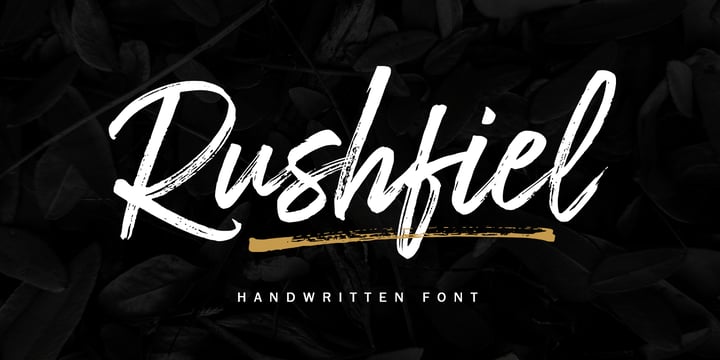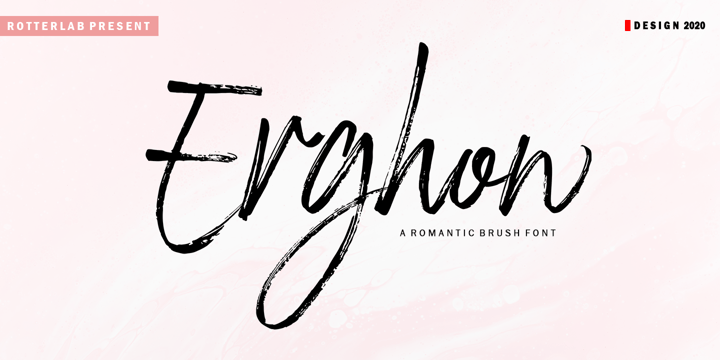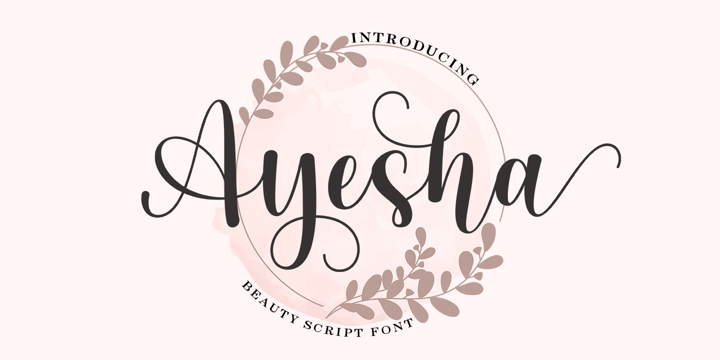
Romantic Font Collection
WOW!!! ROMANTIC FONT COLLECTION - Awesome BUNDLE with unique and modern font styles. This font bundle is perfect for many creative products & designs.
Such as creating Branding, Logos, Blogs, Social Media, Invitations, Weddings, Posters, Magazines, Quotes, Packaging, Photo Overlays, Poatcards, Advertisements, Fashion and others.
WOW!!! ROMANTIC FONT COLLECTION - Awesome BUNDLE with unique and modern font styles. This font bundle is perfect for many creative products & designs.
Such as creating Branding, Logos, Blogs, Social Media, Invitations, Weddings, Posters, Magazines, Quotes, Packaging, Photo Overlays, Poatcards, Advertisements, Fashion and others.